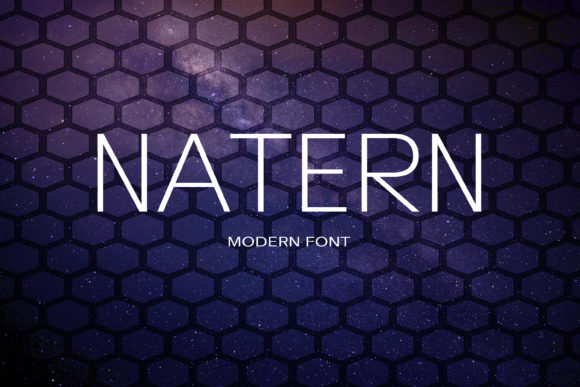
Introduce your brand to the contemporary world with Natern, a seamlessly stylish sans serif font, masterfully crafted by DmDesignsStoreArt. Its sharp lines and confident curves exude a captivating modernity, injecting a touch of sophistication into your designs.
Beyond its visual appeal, Natern is a font built for versatility. Its robust structure lends itself effortlessly to a wide range of applications, from sleek logos and eye-catching headlines to captivating web designs and polished print projects. Whether you're a seasoned designer or just starting your creative journey, Natern is your perfect companion, ready to elevate your work to new heights.
With its bold and captivating presence, Natern commands attention effortlessly. Its unique style adds a touch of intrigue and personality to your designs, ensuring they stand out from the crowd. Harness the power of Natern to create designs that resonate with your audience, leaving a lasting impression that speaks volumes about your brand's identity.
Embrace the limitless possibilities that Natern presents. Its versatility shines in both digital and print realms, making it the ideal choice for a wide range of projects. Unleash your creativity and let Natern guide you towards designs that captivate and inspire.
Don't settle for ordinary fonts that blend into the background. Choose Natern, the font that commands attention, sparks conversations, and leaves a lasting impression. Its bold spirit is a testament to your brand's unique style, setting you apart in a competitive marketplace.
Experience the transformative power of Natern today. Download it now and embark on a creative journey that will redefine your designs and leave your audience in awe. Natern is more than just a font; it's a statement of confidence, creativity, and innovation.